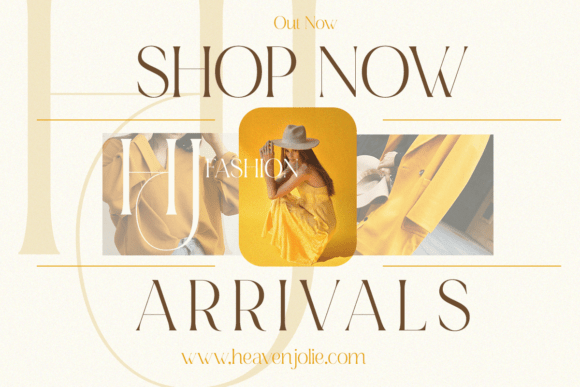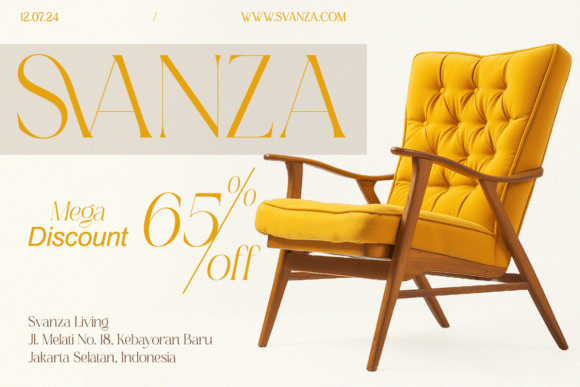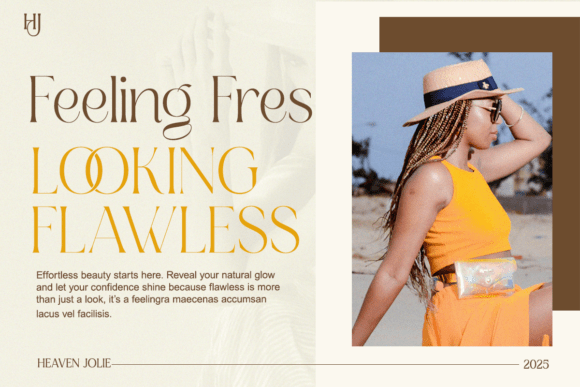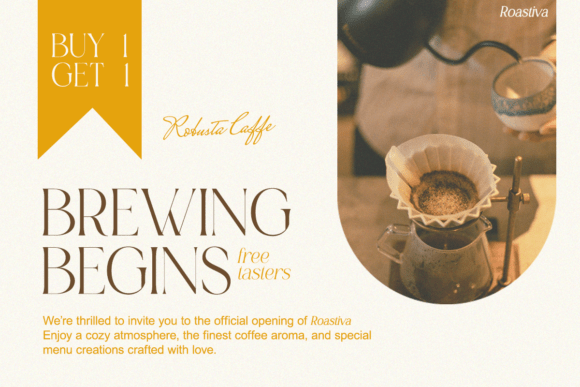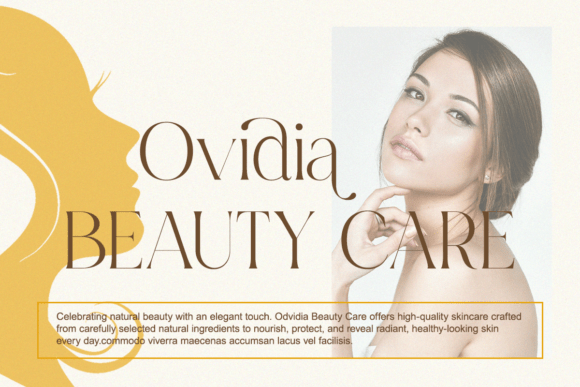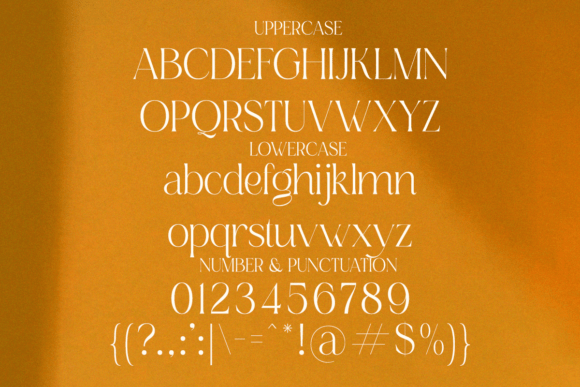
Introduction to Renea Font
Renea is a modern elegant serif typeface crafted for designers who value simplicity and luxury.
It’s perfect for fashion logos, beauty branding, packaging, editorials, and wedding invitations With soft letterforms and high readability, Renea balances beauty and minimalism for any elegant visual concept.
Key Features of Renea Font
Why Choose Renea Font?
Renea Font offers exceptional quality and versatility, making it a valuable addition to your design toolkit. Whether you’re creating for personal projects or commercial use, Renea Font delivers professional results.